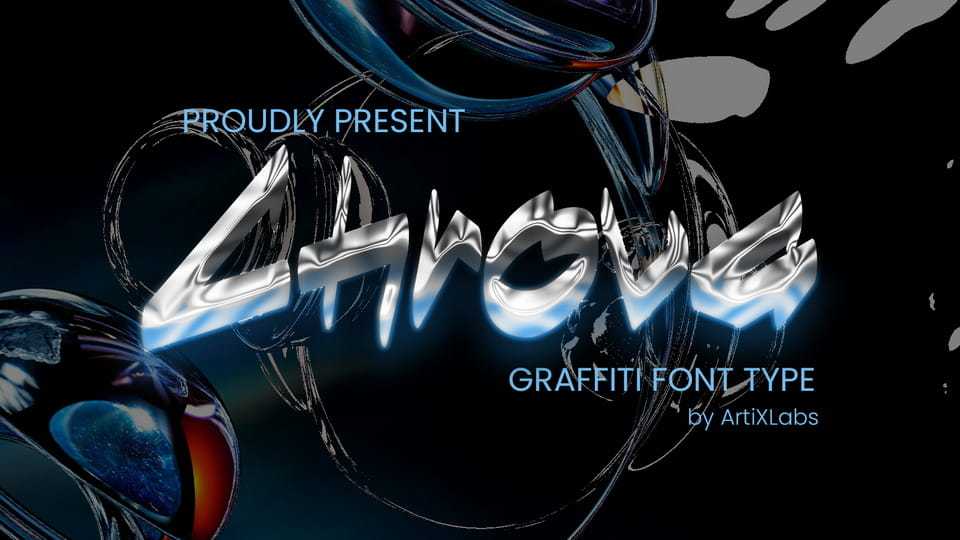
Download Chrova font, a futuristic cyber graffiti typeface inspired by chrome textures and digital street culture. With its bold techno strokes and metallic character style, this typeface is perfect for gaming branding, cyberpunk posters
Designer: ArtiXLabs